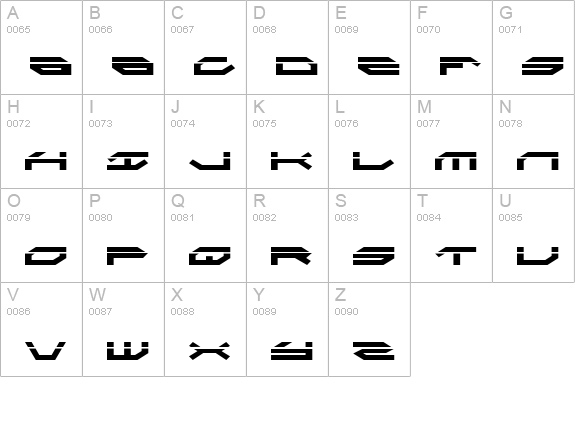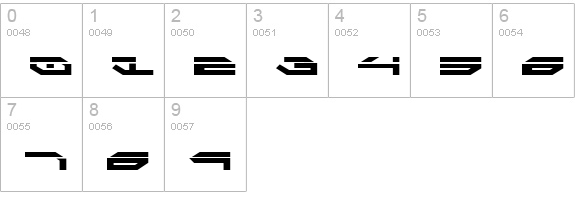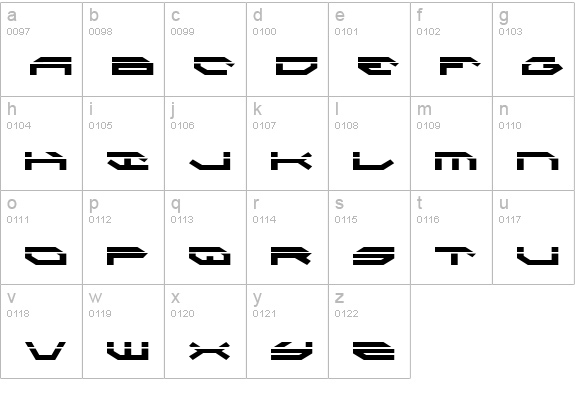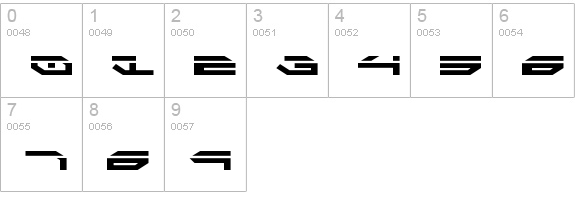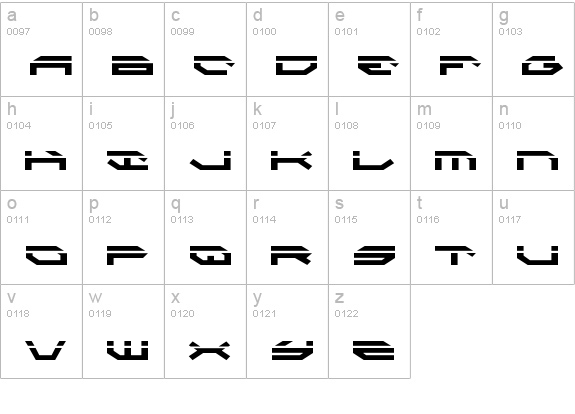
Taskforce Laser font is a bold and dynamic display typeface that exudes power and sophistication. With its sharp edges and futuristic design, this font is perfect for adding a modern touch to your projects. Whether you're working on posters, logos, or any other design project that requires a strong visual impact, Taskforce Laser font will not disappoint. The best part is that Taskforce Laser font is completely free to download at FontsMarket.com. This means you can easily add this eye-catching font to your collection without any cost. So why wait? Download Taskforce Laser font today and elevate your designs with its striking aesthetics.